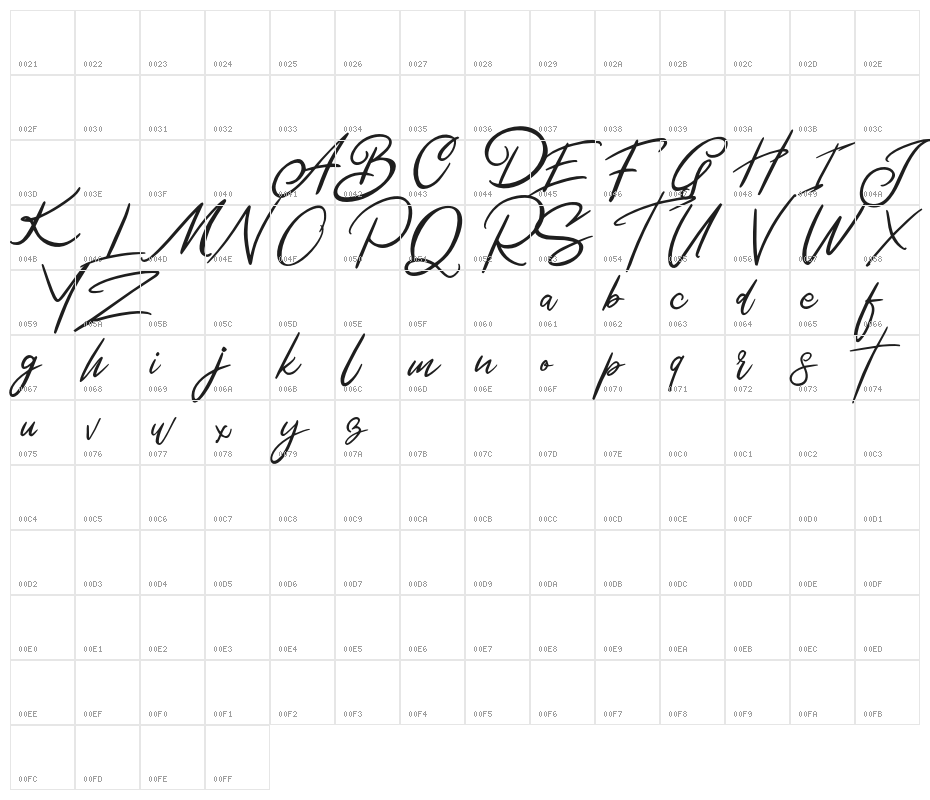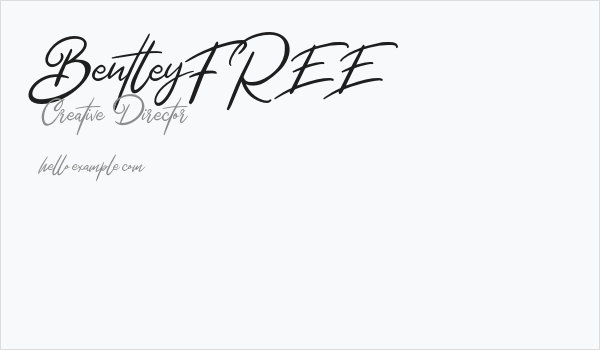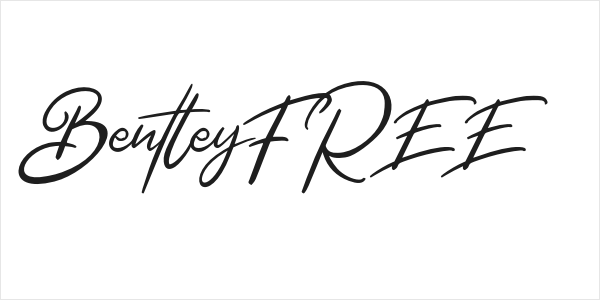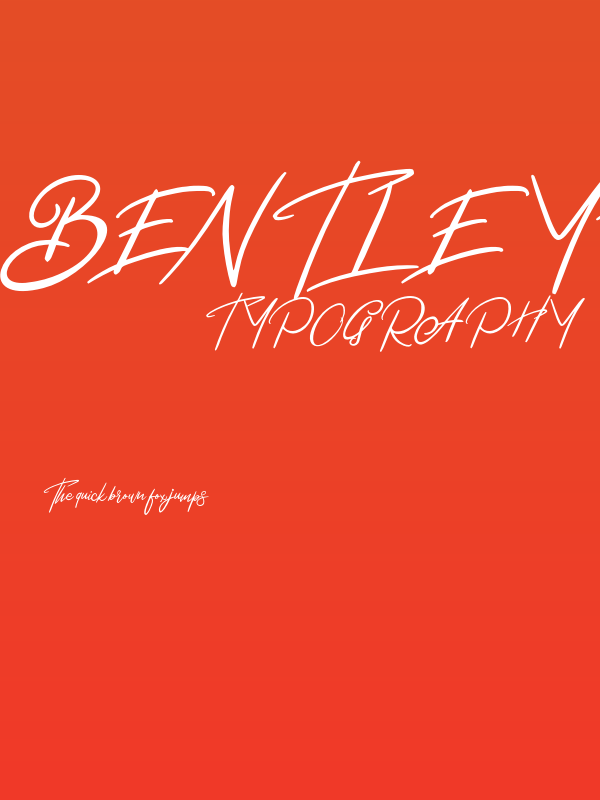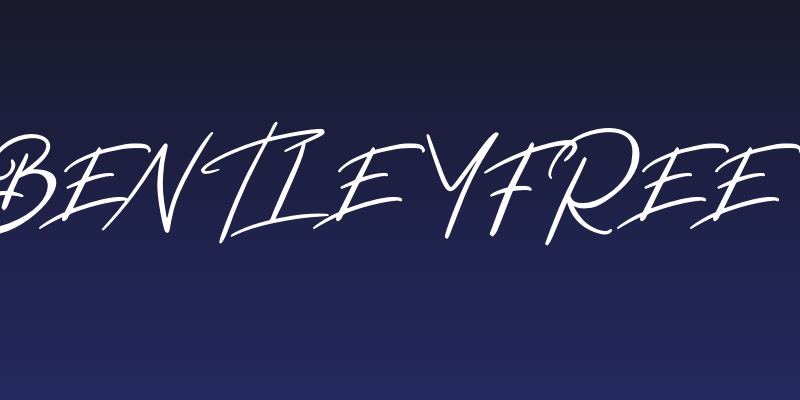
BentleyFREE Font
BentleyFREE Description
This font features a dynamic and elegant script style, characterized by fluid, interconnected strokes that mimic the natural flow of handwriting. The uppercase letters are tall and graceful, with sweeping curves and loops that add a sense of movement and sophistication. The lowercase letters maintain a consistent rhythm, with smooth transitions between each character. The overall appearance is both stylish and legible, making it suitable for a variety of design applications. The numerals and special characters are crafted with the same attention to detail, ensuring a cohesive look across all text elements.
| Proposed Projects | Ideal for wedding invitations, elegant branding, personal signatures, and artistic projects requiring a touch of sophistication. |